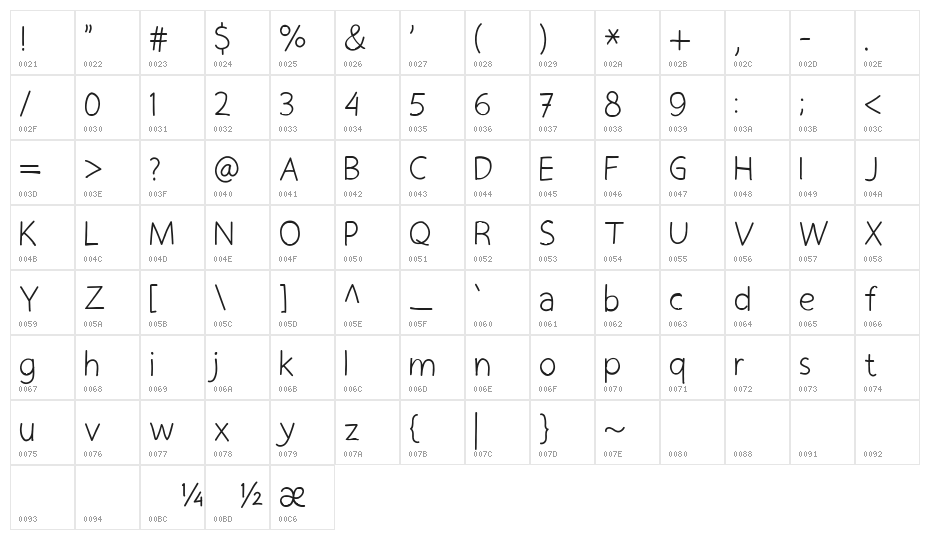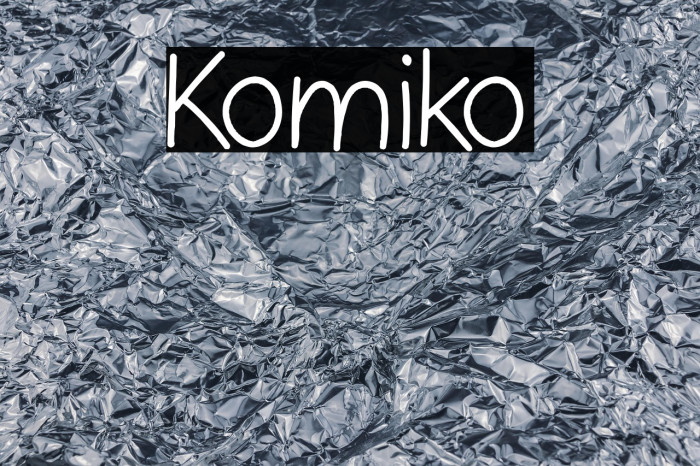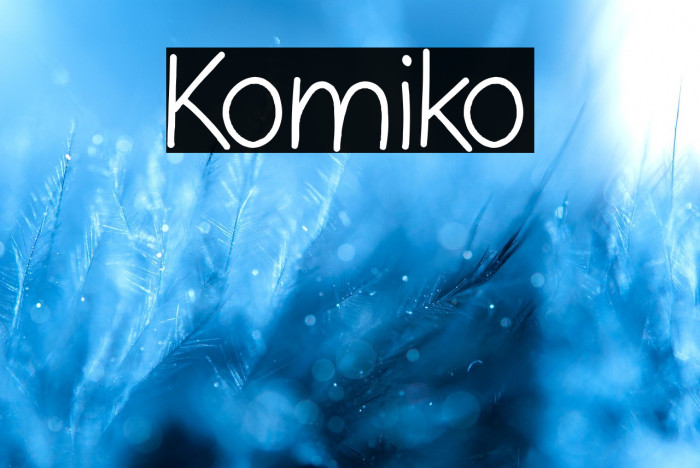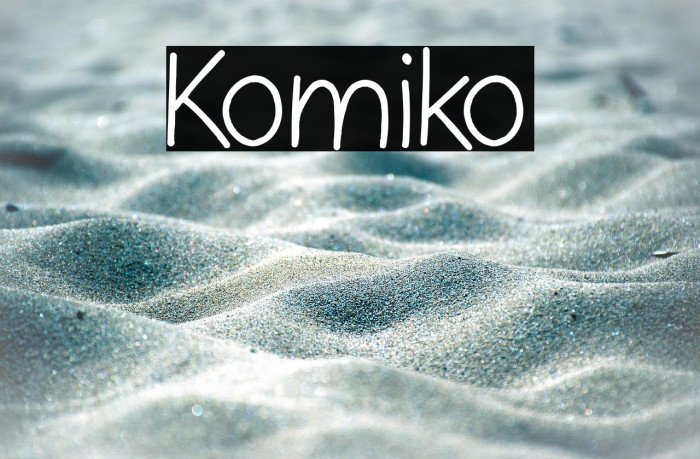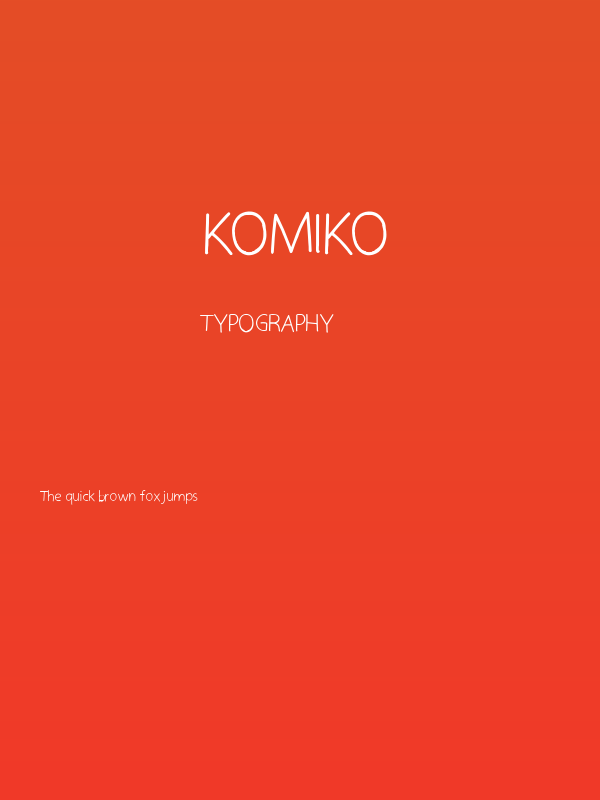
Komiko Font
Komiko Description
This font features a playful and casual handwritten style, characterized by its rounded and slightly irregular letterforms. The strokes are consistent in width, giving it a uniform appearance while maintaining a friendly and approachable vibe. The uppercase letters are tall and slightly narrow, while the lowercase letters are more rounded and open. Numbers and special characters follow the same playful aesthetic, making this font versatile for various informal applications. The overall design is clean and legible, suitable for conveying a sense of warmth and creativity.
Overall StyleCasual
Use CaseHeadlines, Informal text, Creative projects
Proposed ProjectsIdeal for children's books, greeting cards, casual branding, and social media graphics.